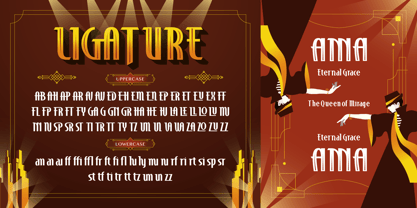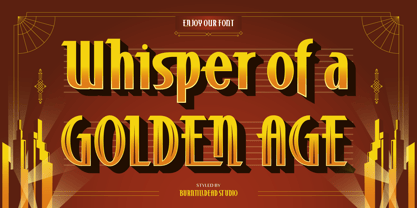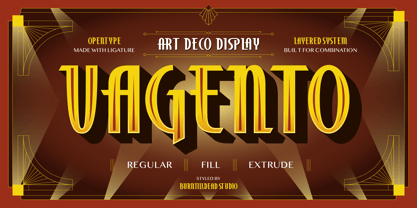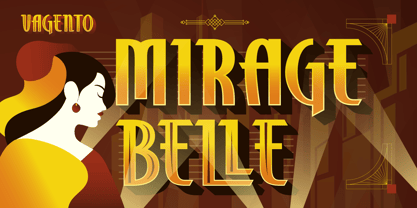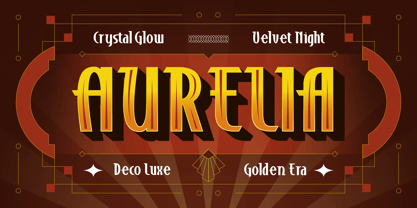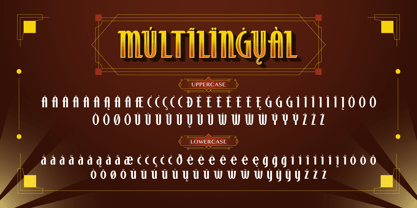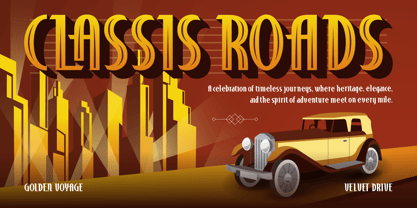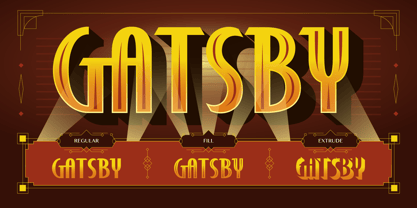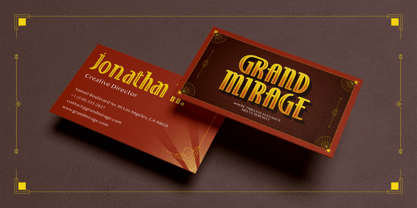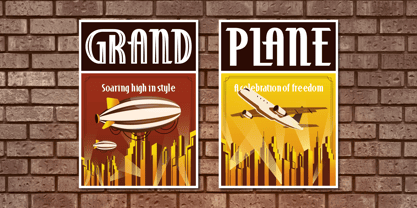
Vagento
by Burntilldead
Step into the golden age of glamour with Vagento – Art Deco Display Font. Captures the lavish elegance of The Great Gatsby era — where style, ambition, and golden lights defined the night. This typeface brings back the luxurious spirit of the roaring 1920s — where champagne never stopped flowing and every detail screamed sophistication. Vagento combines bold geometric shapes, elegant curves, and layered styles that let you mix Regular, Fill, and Extrude for a striking dimensional effect. Perfect for branding, invitations, posters, logos, or any design that needs that vintage-luxury touch. Whether you’re designing for a jazz bar, a wedding, or a modern art gallery, Vagento instantly transforms your work into a timeless masterpiece — because elegance never goes out of style. Features: A - Z set (Uppercase & Lowercase), Number, Alternates, Ligatures, Punctuation, Multilingual
Vagento